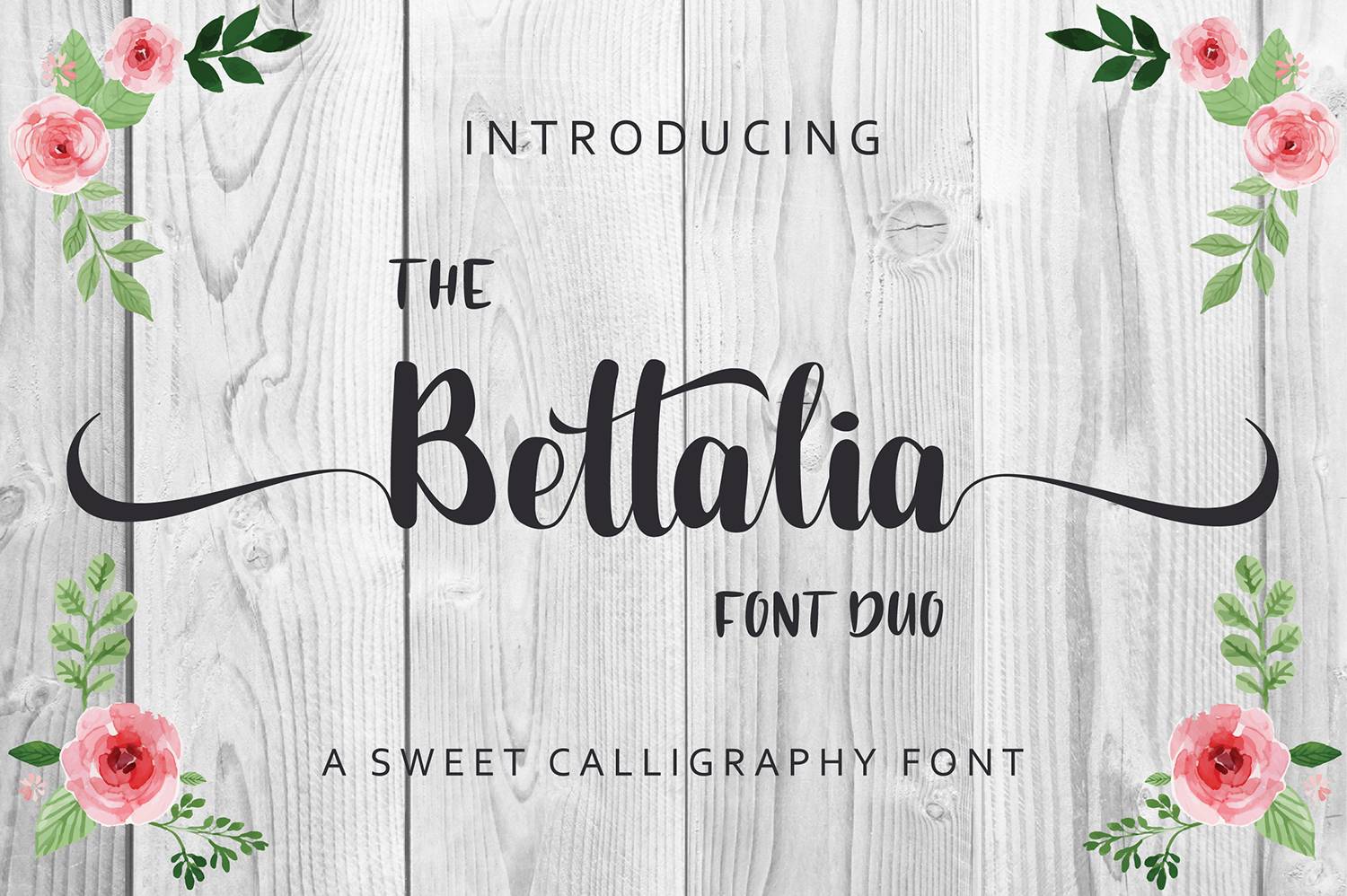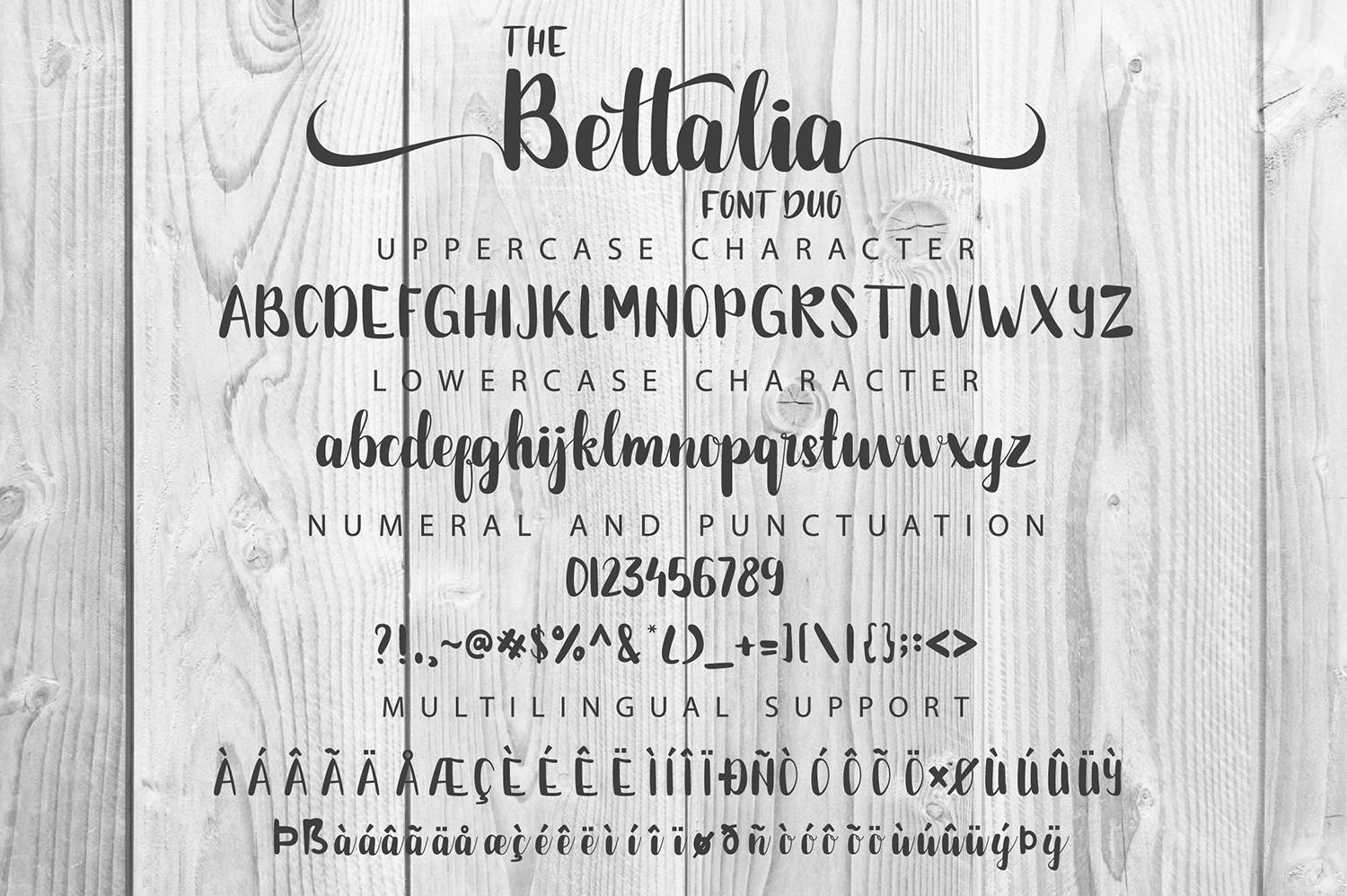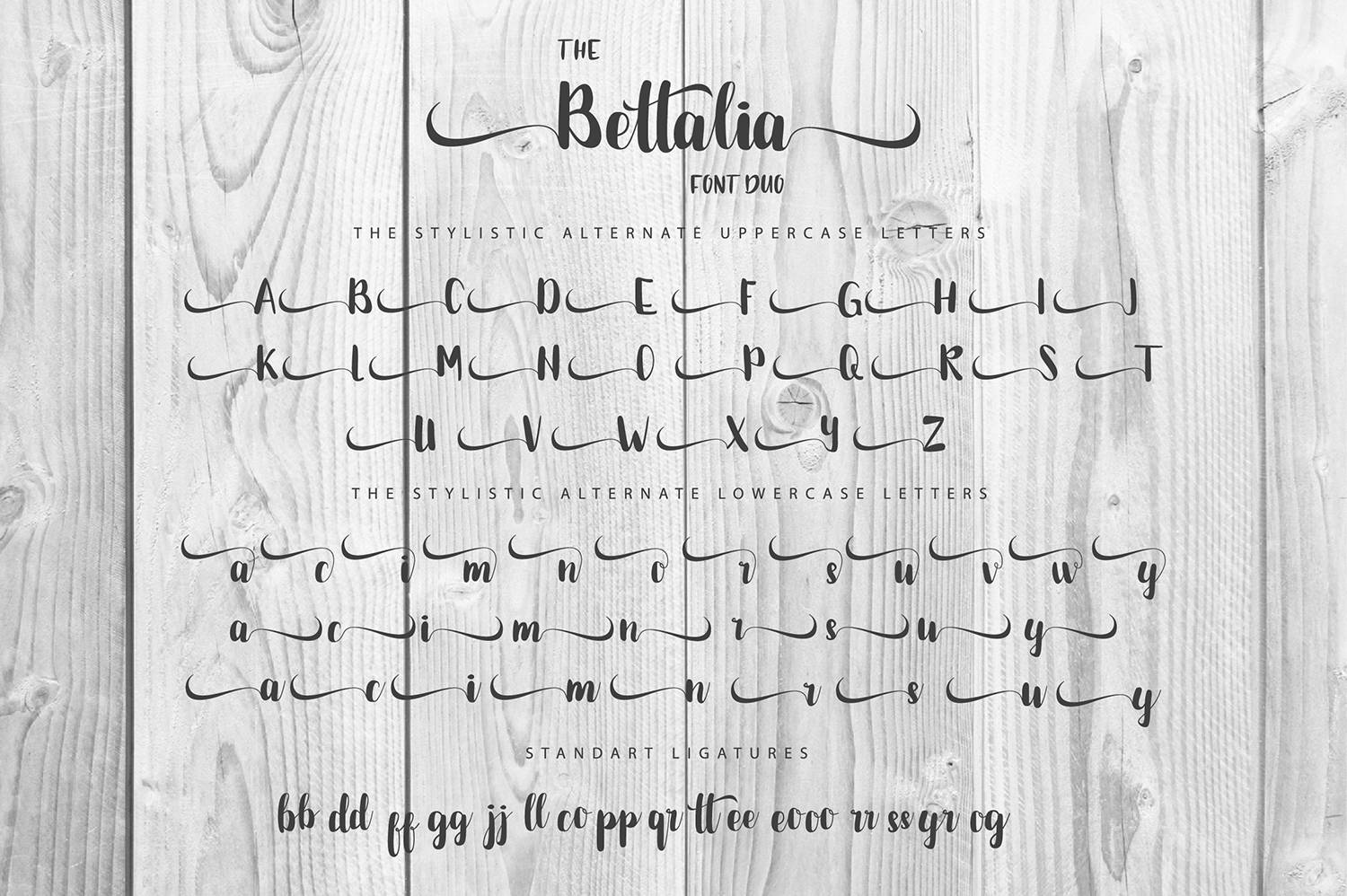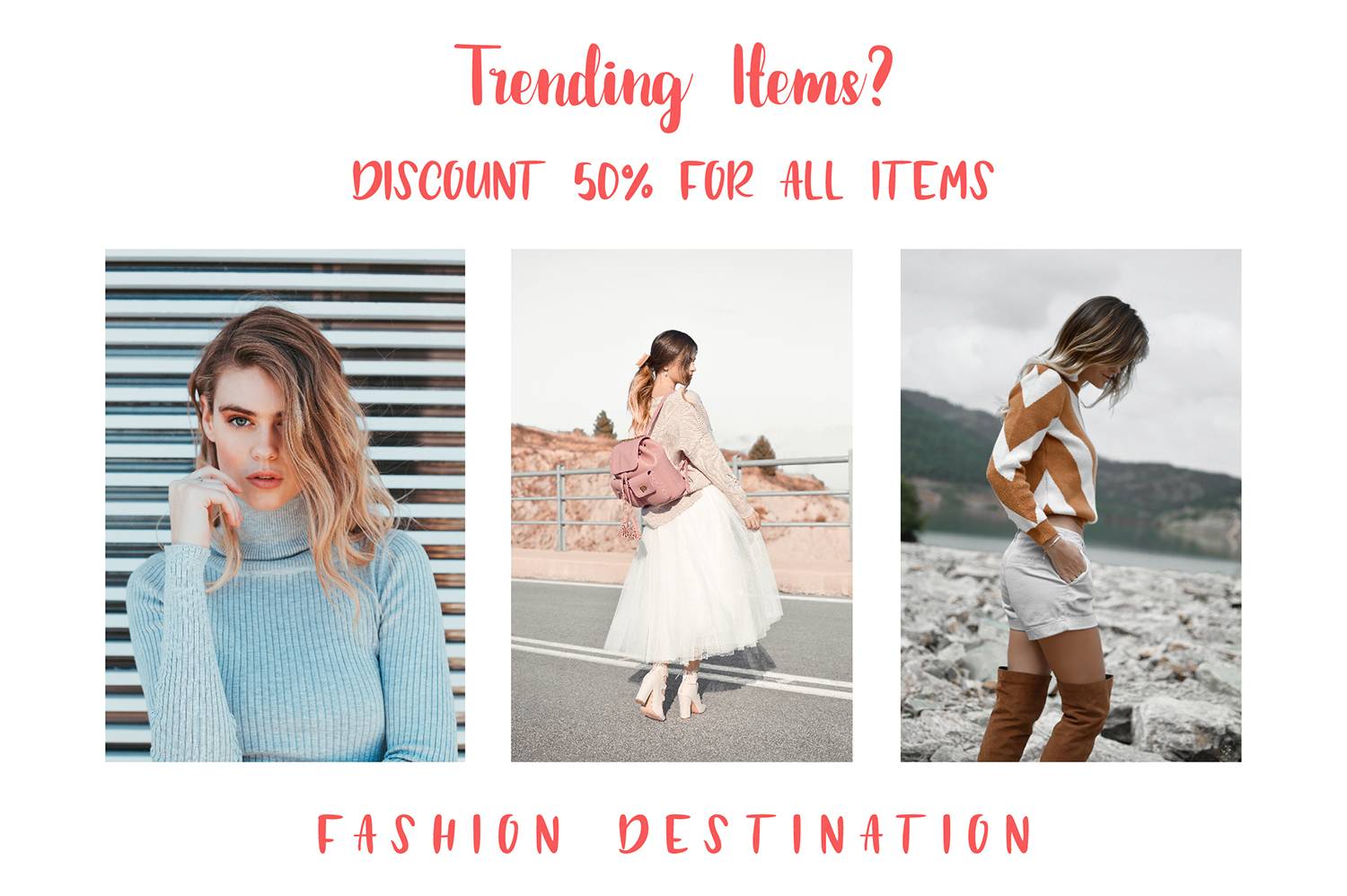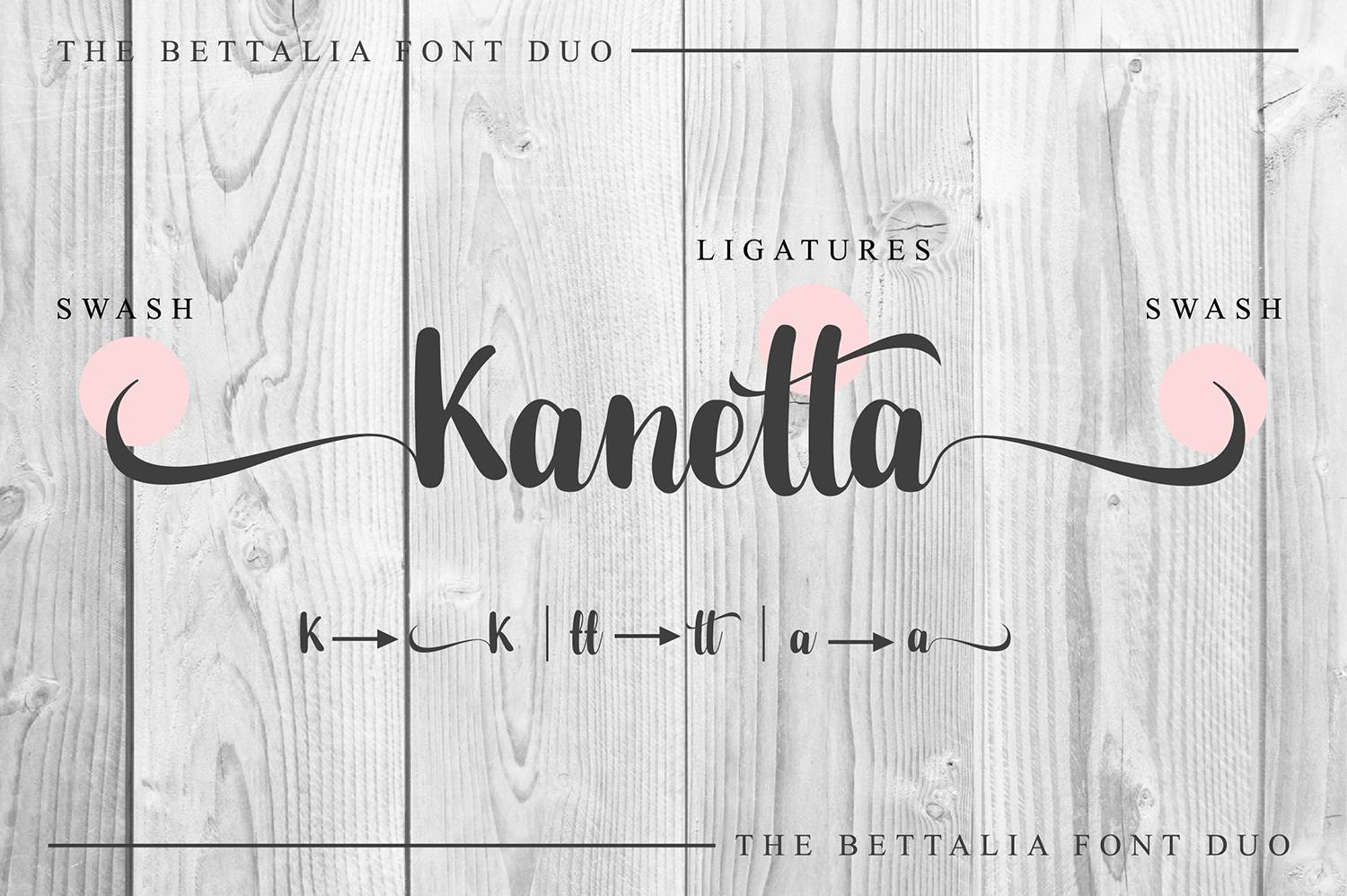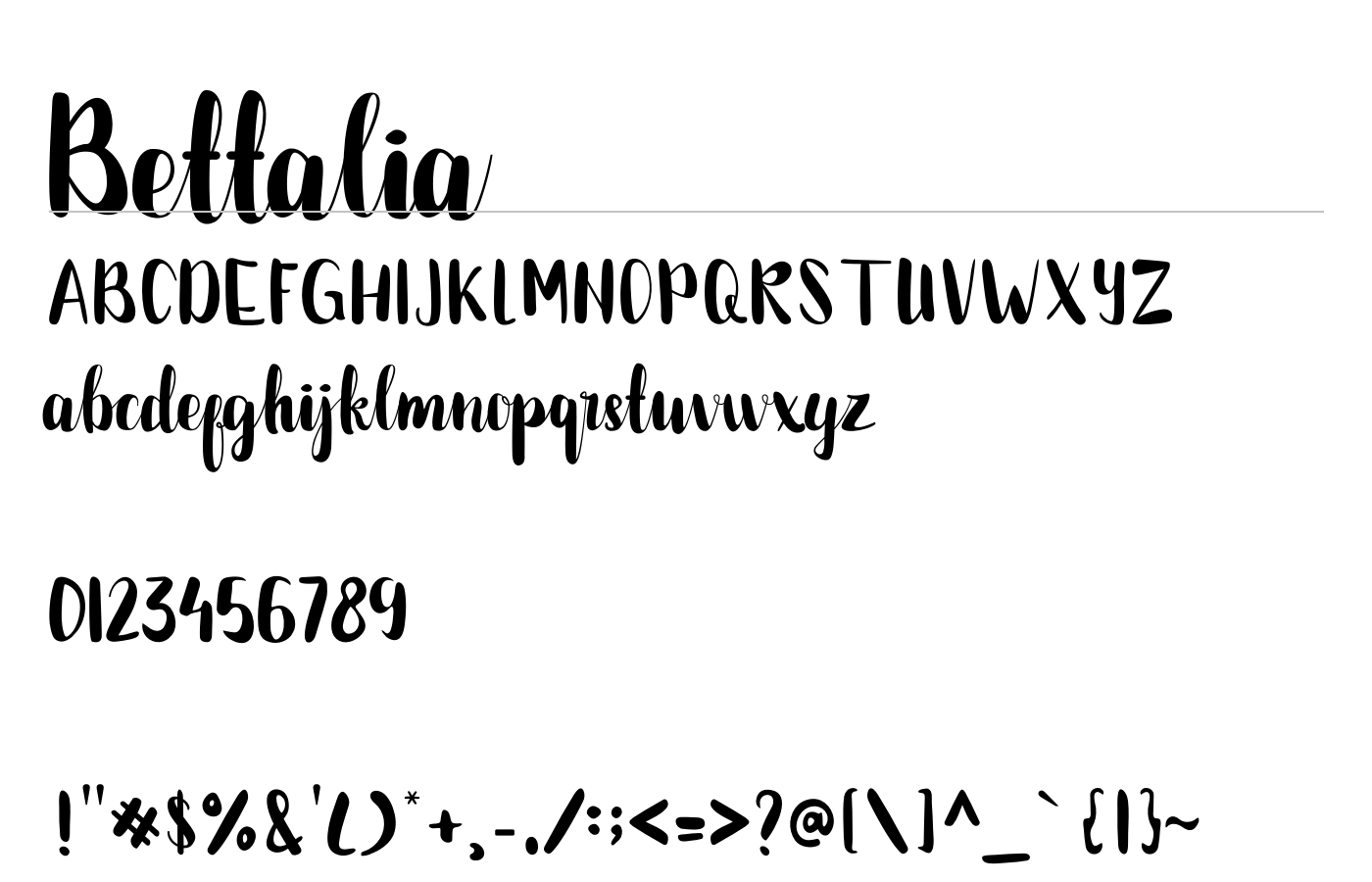
Bettalia is a playful and lively script font with a bold, rounded weight and a hand-drawn charm. Its tall x-height and smooth, flowing strokes give it an approachable and friendly feel, making it perfect for creative branding, casual invitations, and eye-catching headlines. This font works well where a fun, personal touch is needed to bring warmth and character to your design.
Bettalia Font
About Bettalia Font